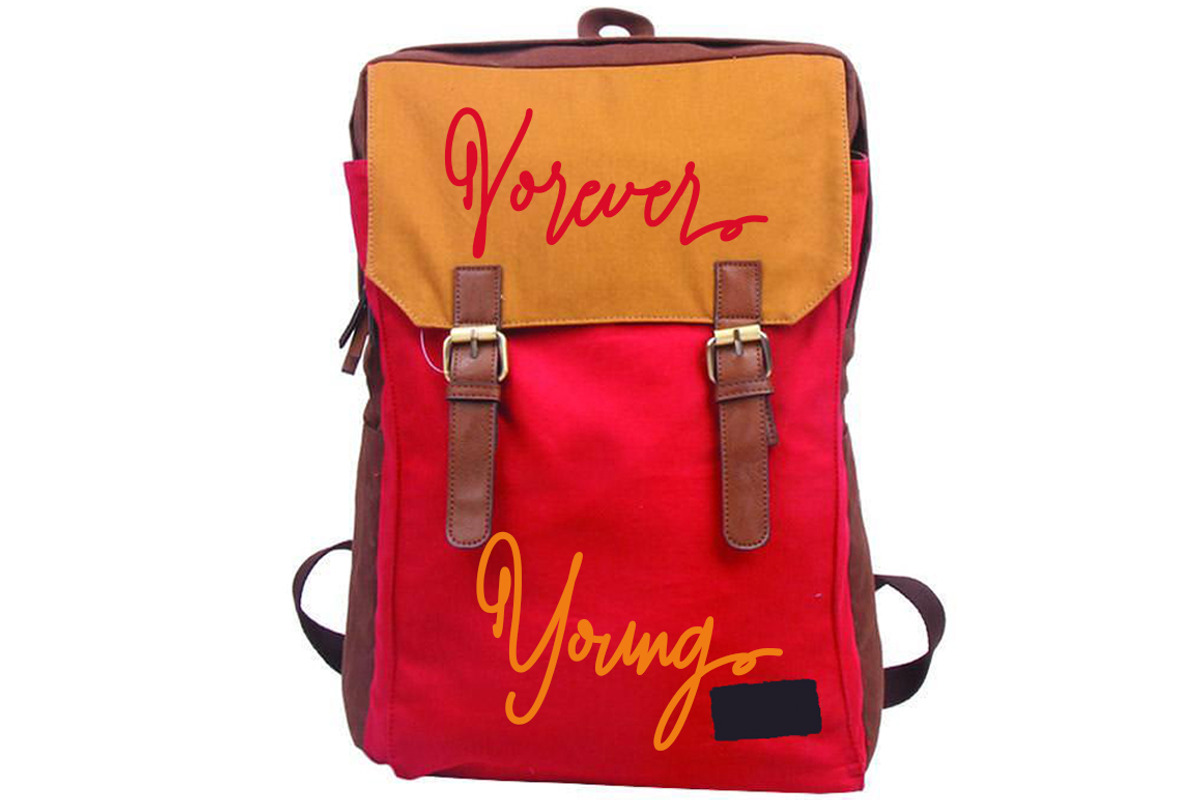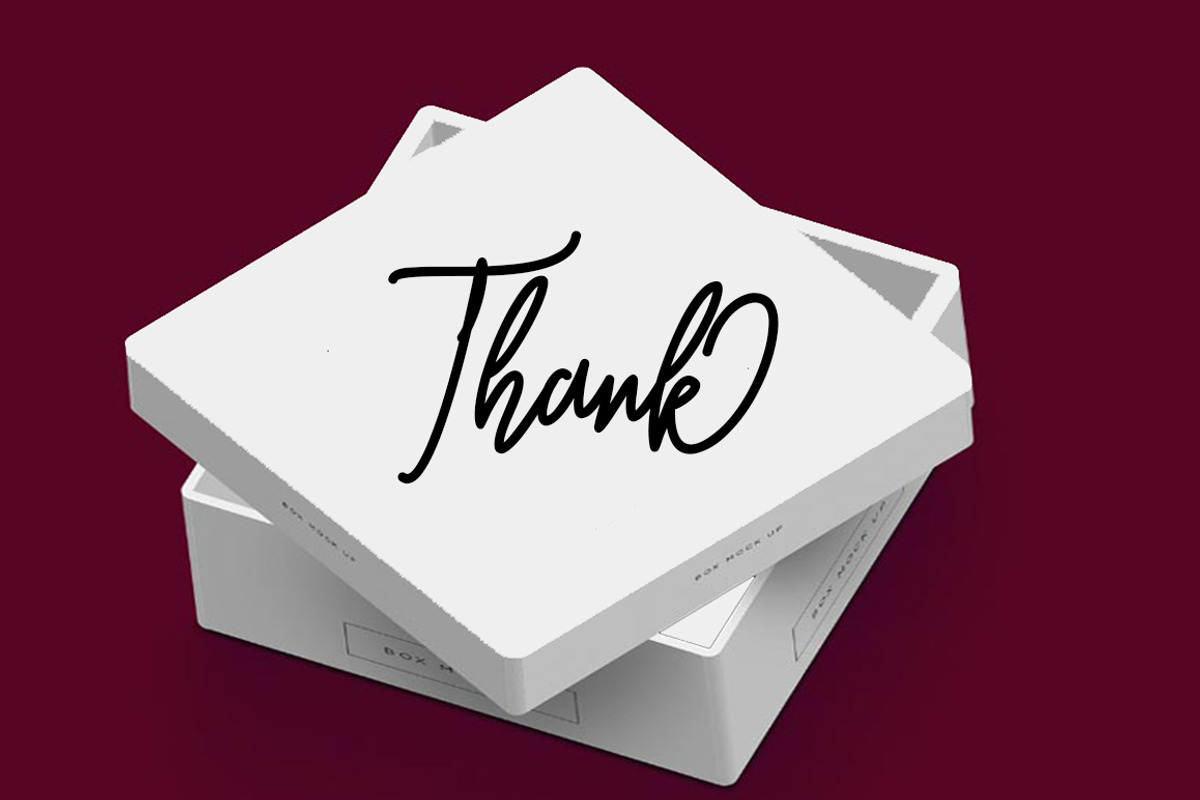
Shark
Shark Signature. This font is designed for font users who like the Modern Character. This font is equipped with various alternate front and rear characters as well as upper and middle fonts, so it is suitable for signature, pearl word, book title, magazine title, invitation card, or works that require original handwriting character. No less important this font is equipped with Alternative Swash and ligature.The Features of this fonts is;
Standart ligatures Stylistic Alternates Swash Alternates Stylistic sets